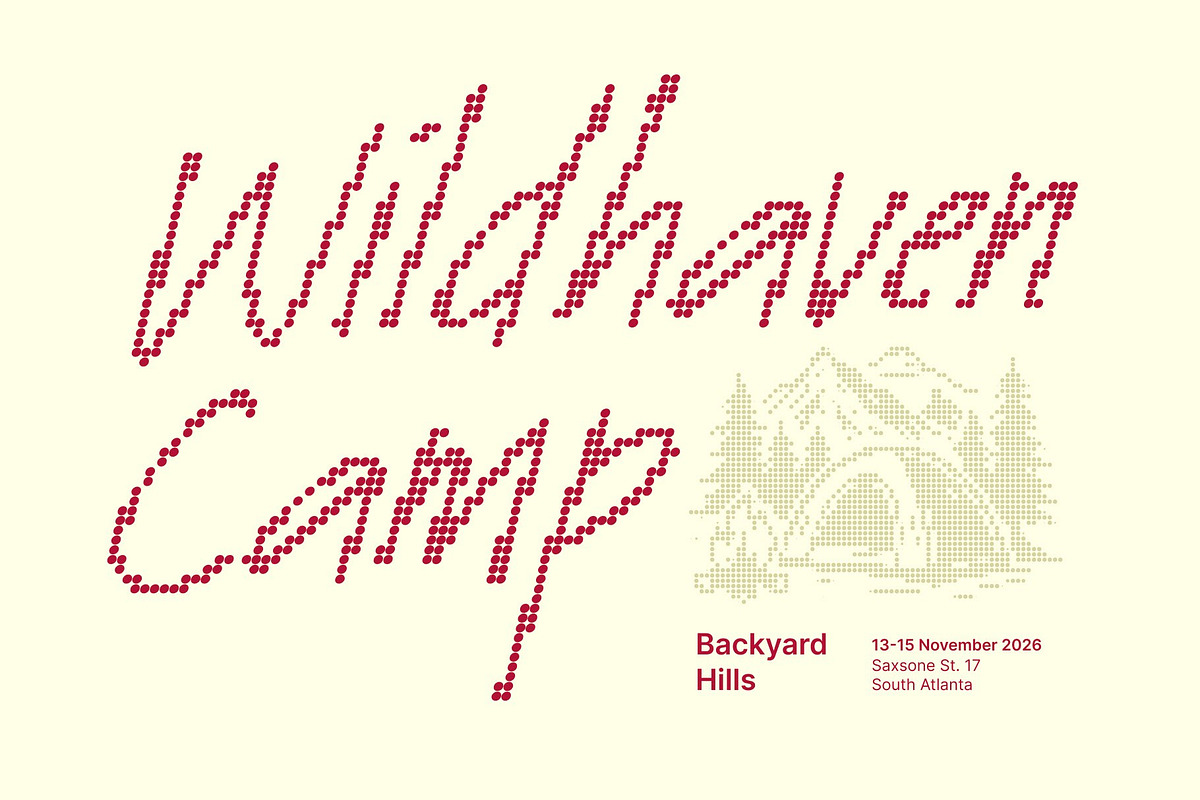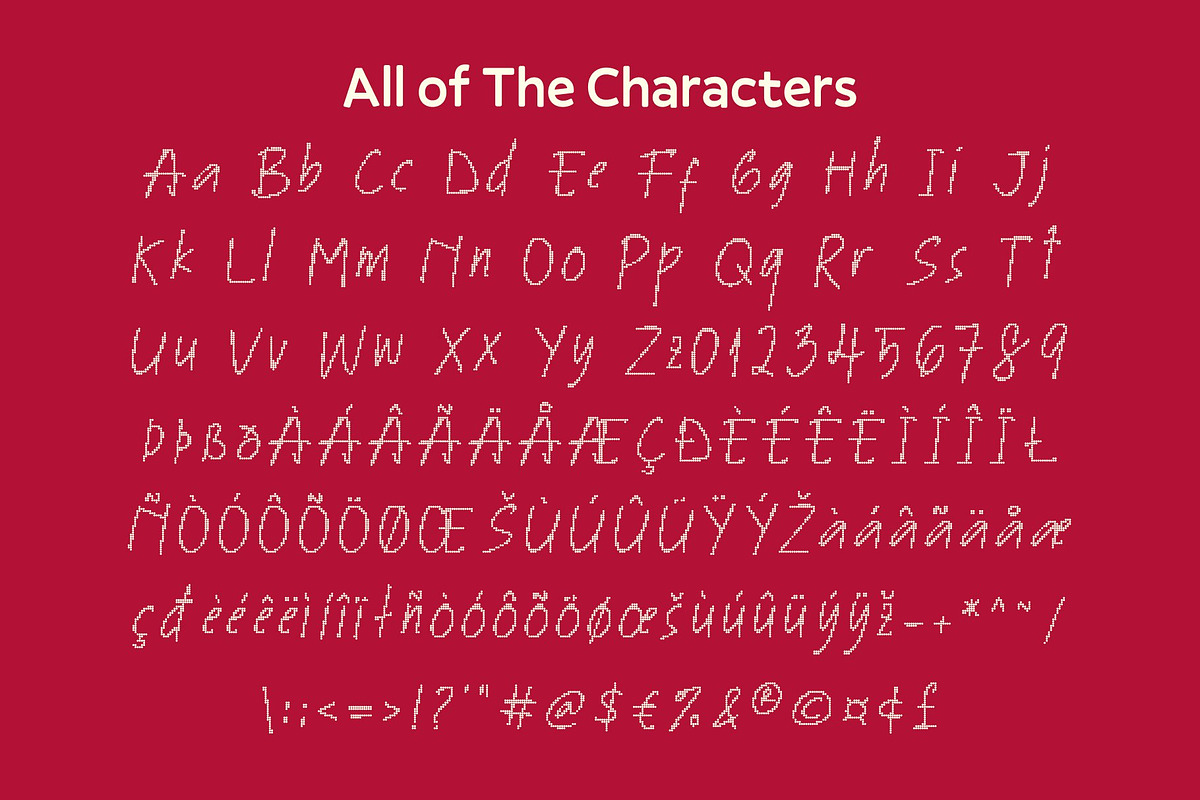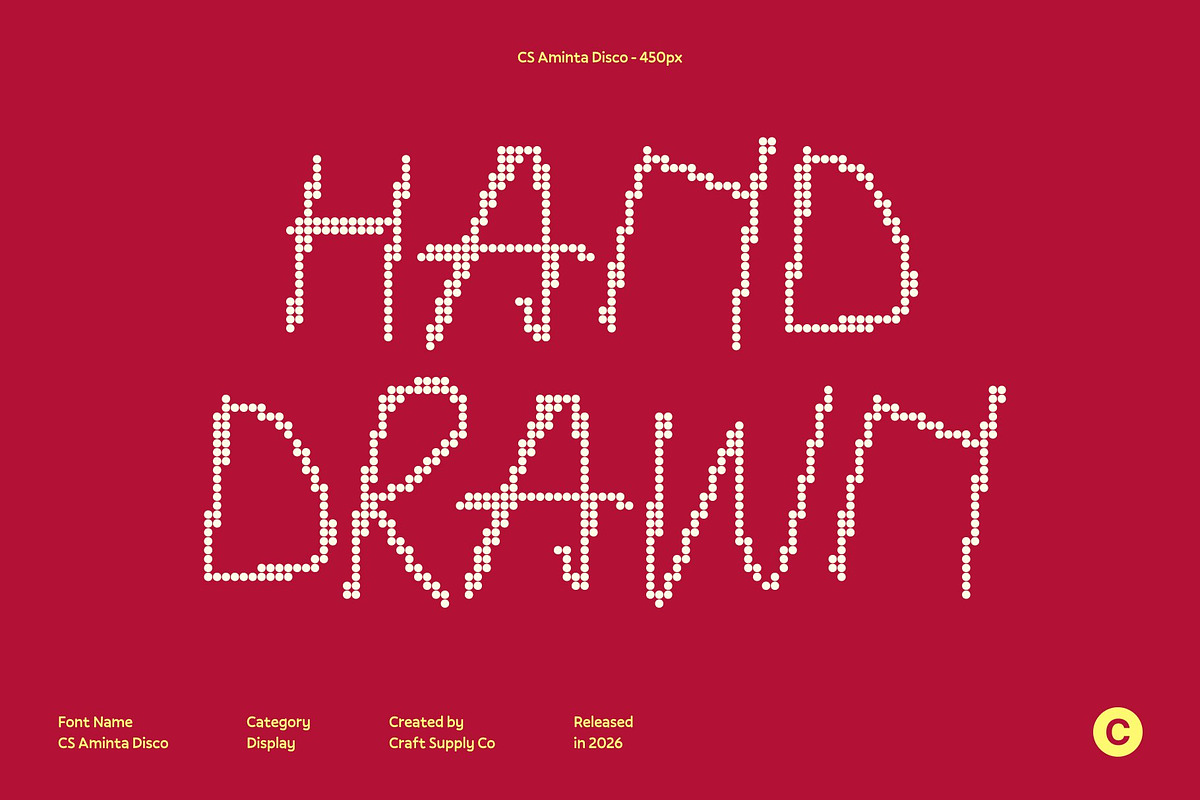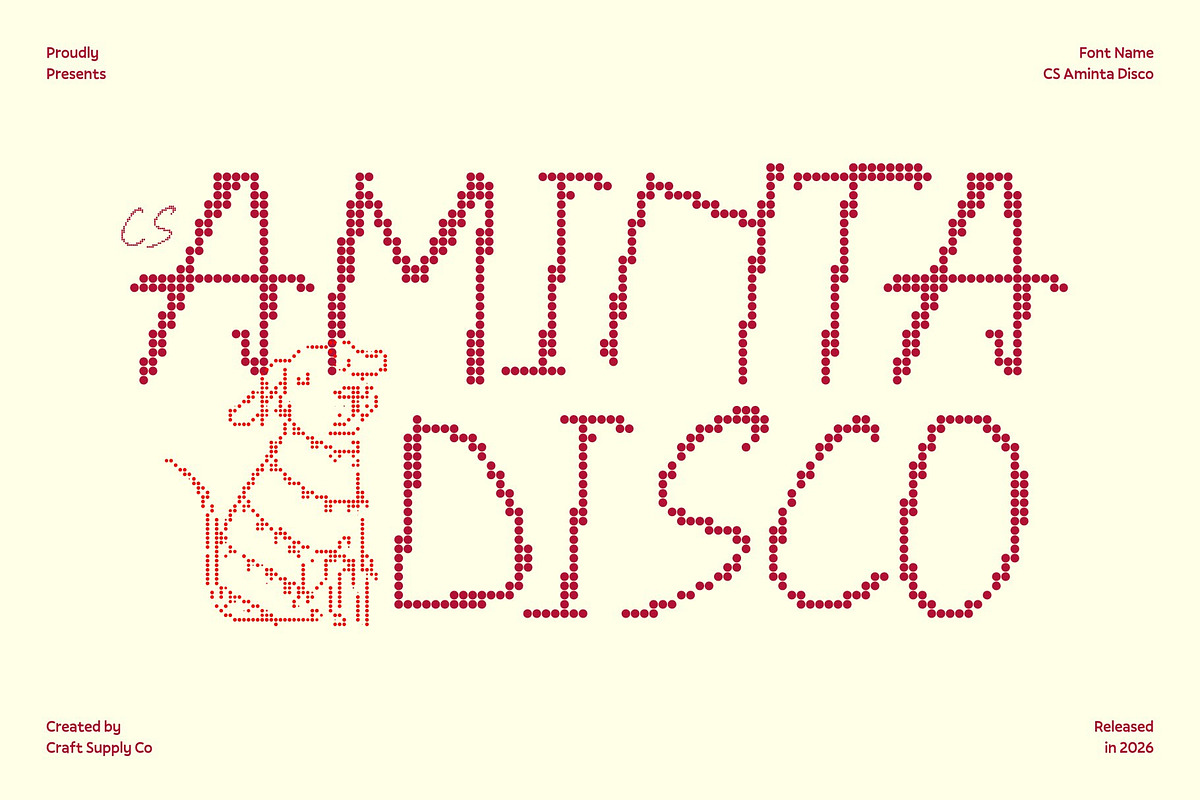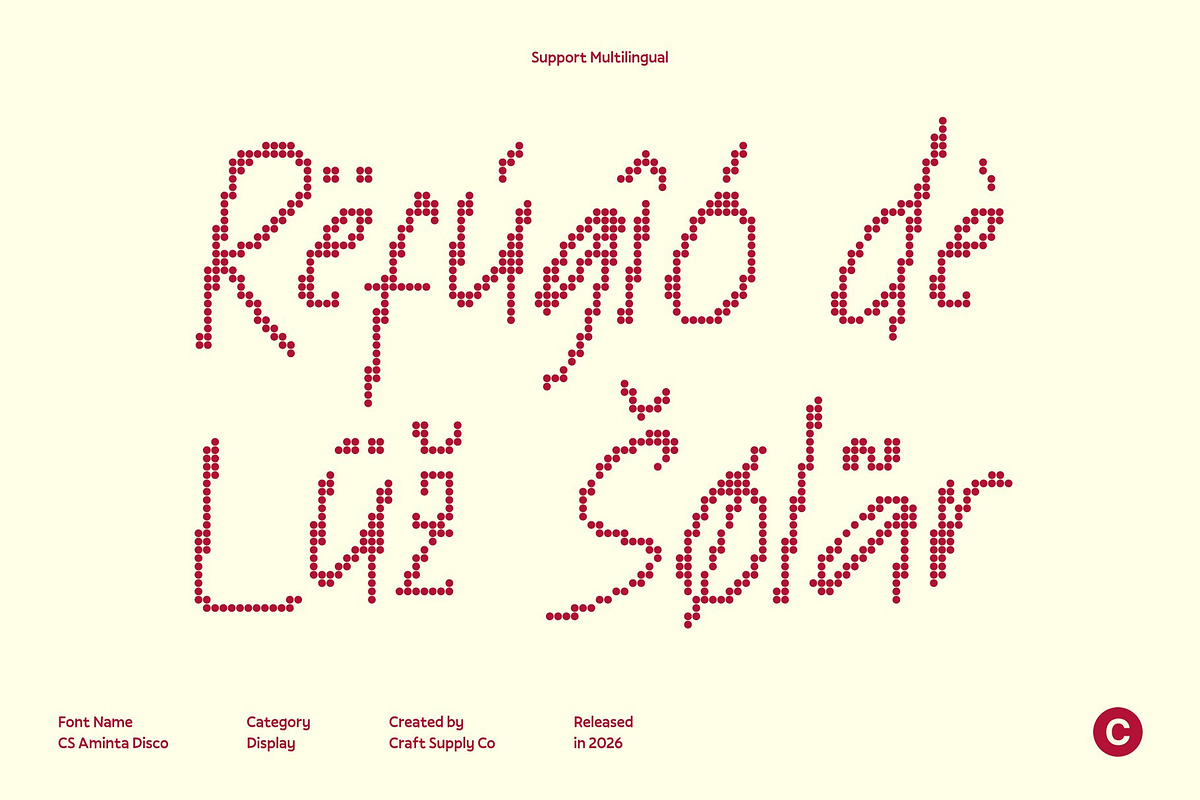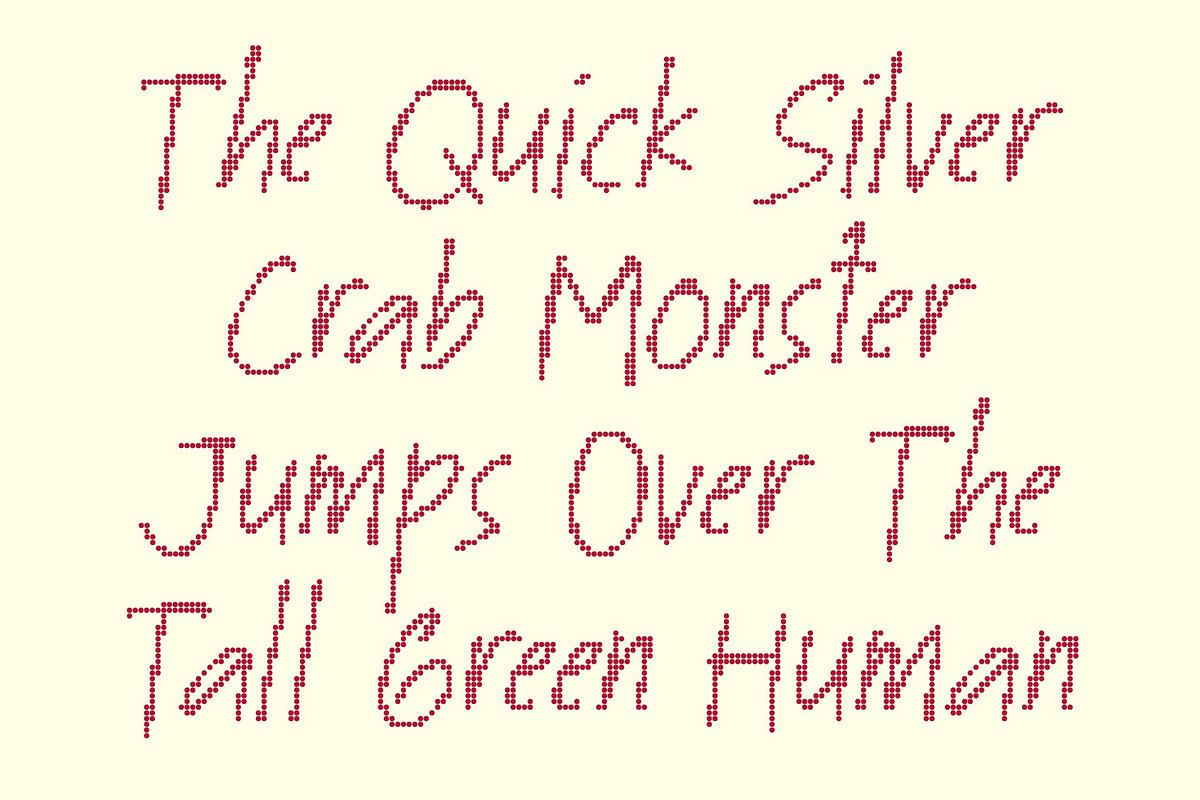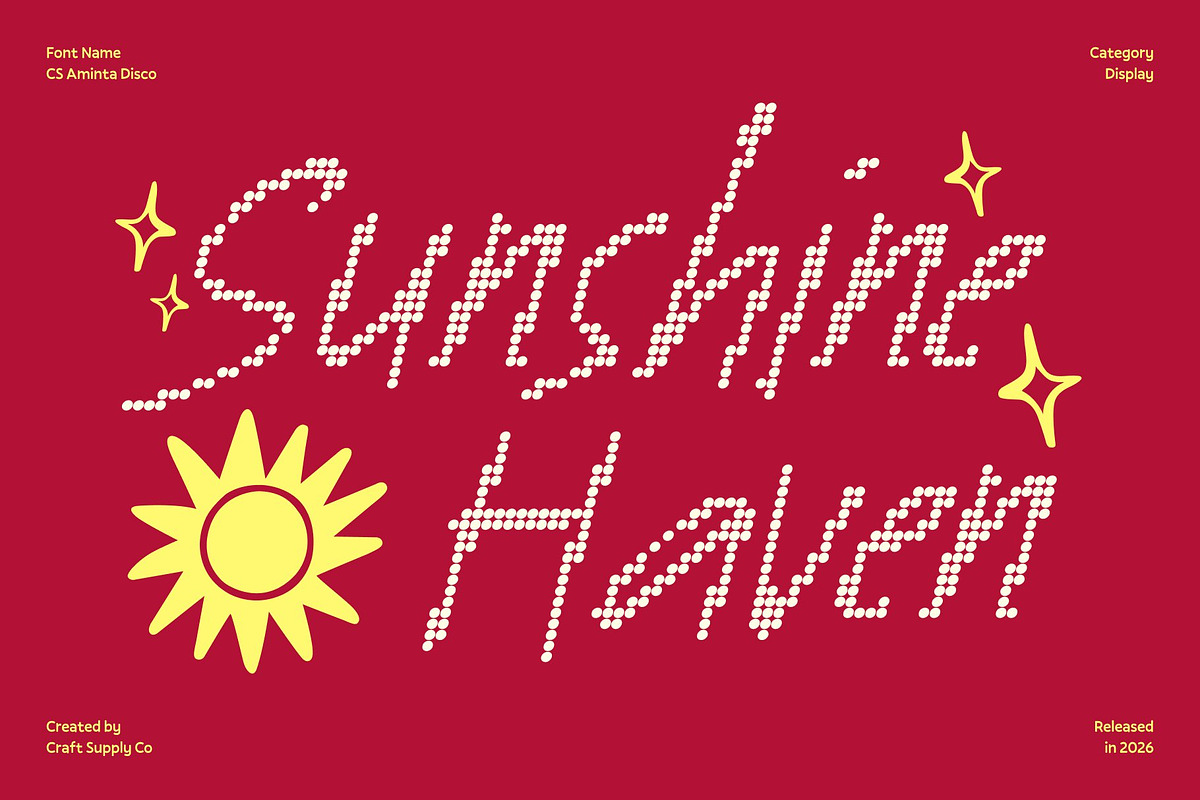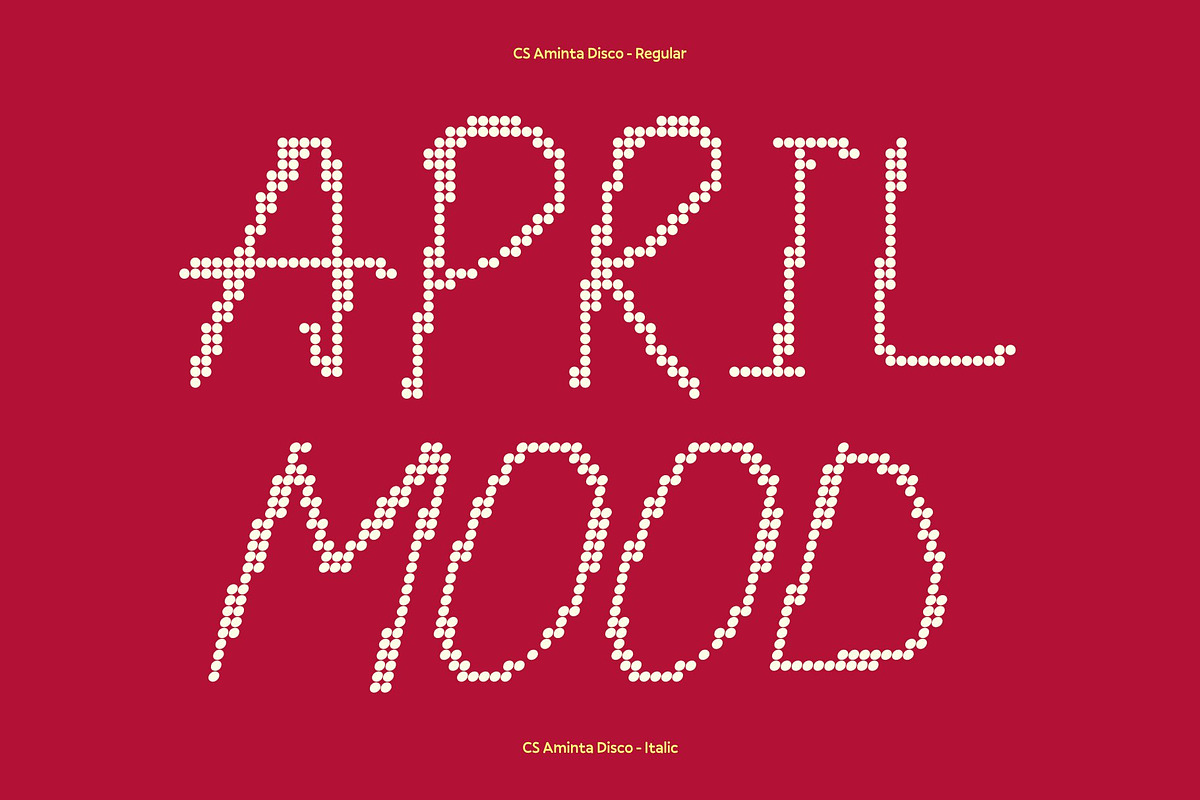
CS Aminta Disco
CS Aminta Disco – Natural Handwriting Font with Personal Charm and Cheerful Energy Genuine Pen-Stroke Texture with Disco Warmth This is an authentic handwriting font designed to capture the natural flow and texture of real pen strokes, enhanced with a gentle disco-inspired liveliness. Its relaxed shapes and subtle stroke variations create a warm, personal tone that feels sincere, expressive, and human like handwritten notes glowing with joyful energy.
Smooth, Casual Strokes for a Friendly Expression Each character follows a smooth, free-flowing motion that reinforces a casual and welcoming aesthetic. Slight imperfections in the curves add honesty and charm, while the disco rhythm introduces a light sense of movement, keeping the font friendly, engaging, and visually alive.
Perfect for Heartfelt Messages and Personal Moments With its warm personality and handwritten realism, this font shines in greeting cards, journals, and personal stationery. It enhances emotional messages, helping them feel intimate, genuine, and thoughtfully crafted.
Ideal for Casual Branding and Creative Design Beyond personal use, this font works beautifully in casual branding, lifestyle logos, small-business identities, packaging, social media graphics, and creative projects. Its relaxed handwriting style delivers authenticity and playful charm perfect for designs that want to feel personal, approachable, and full of positive disco-inspired spirit.
- CS Aminta Disco Regular
- CS Aminta Disco Italic